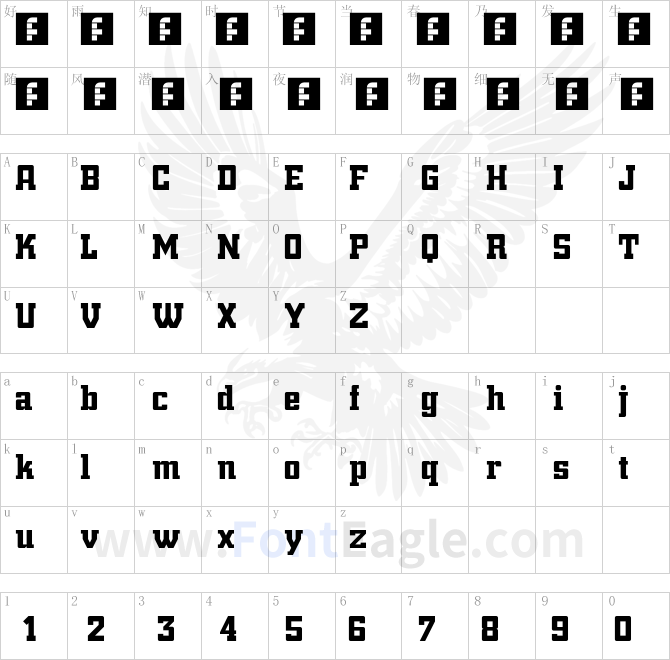
- Font name:Trump Town Pro
- Font Subfamily ID:RogerS.Nelsson: Trump Town Pro: 2008
- Font Full Name:TrumpTownPro
- Font Version:Version 11.001
- Postscript:TrumpTownPro